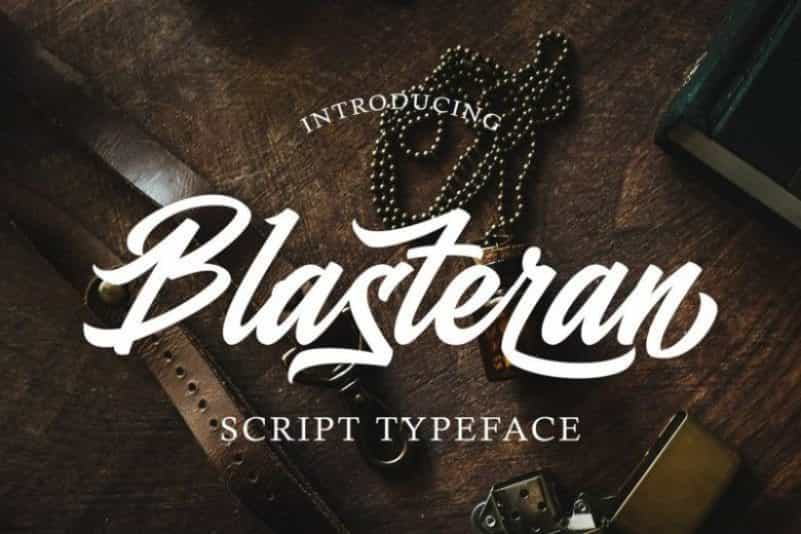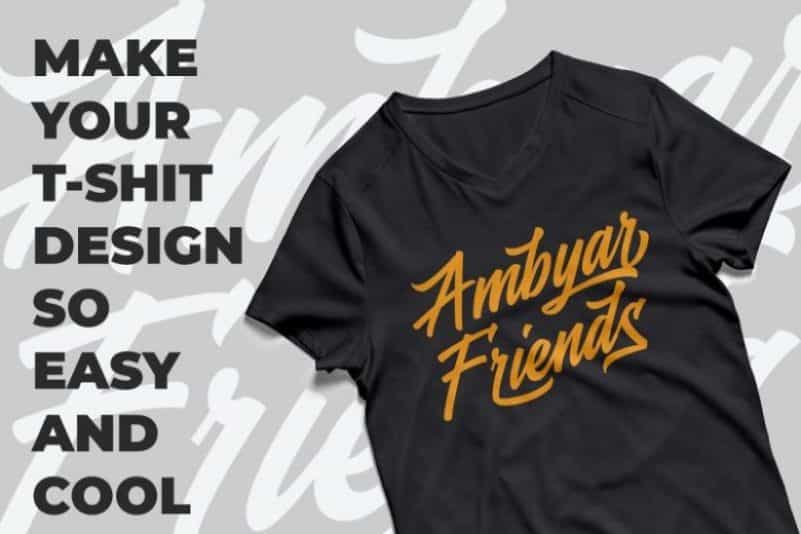
Blasteran is a script font that is very elegant with lots of alternate characters and beautiful flourish which will surely help you to create an awesome lettering. Blasteran is the best for creating logotypes, lettering compositions, wedding invitations, fashion projects, cover designs of books and magazines typography as well as cards packaging’s posters branding etc.